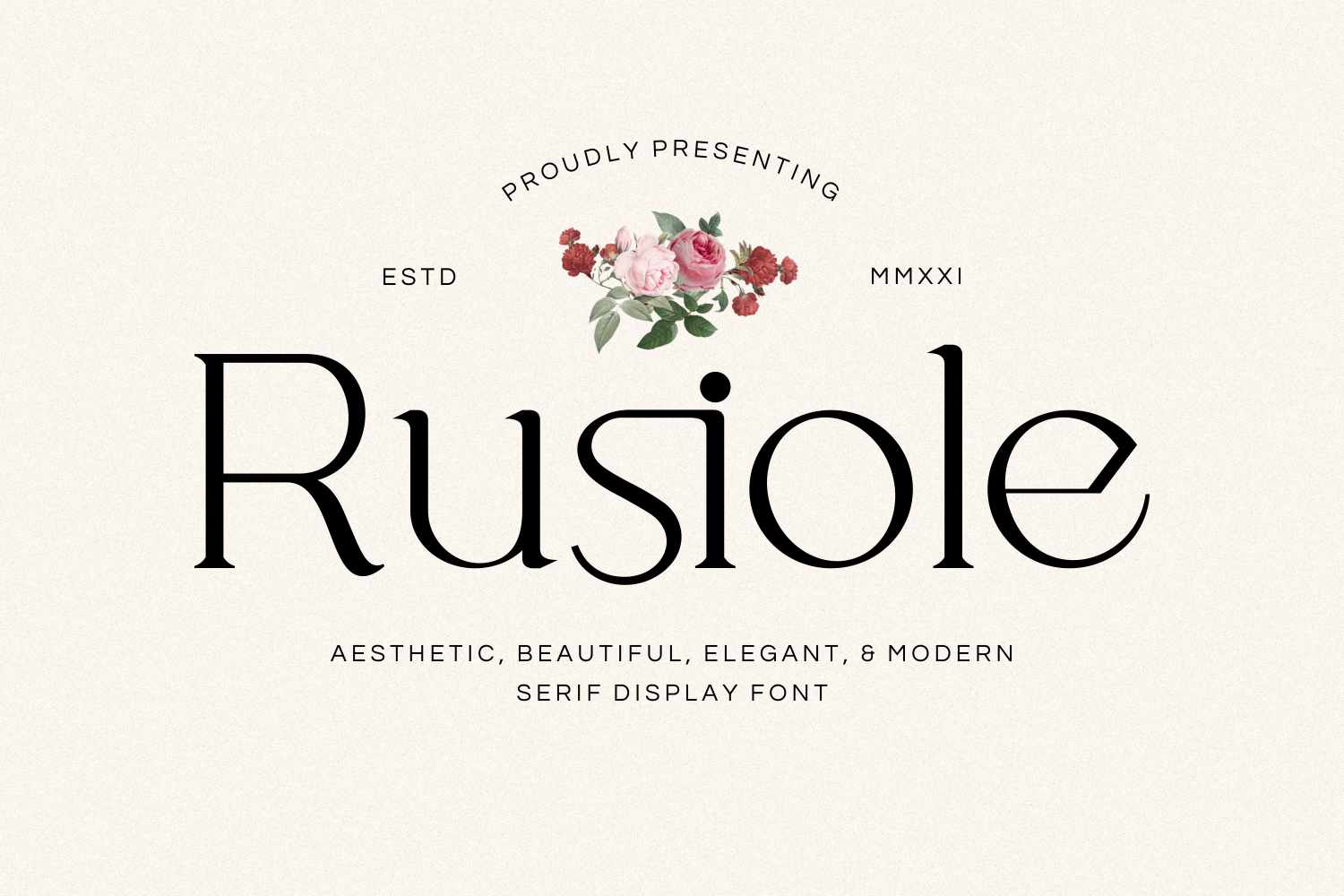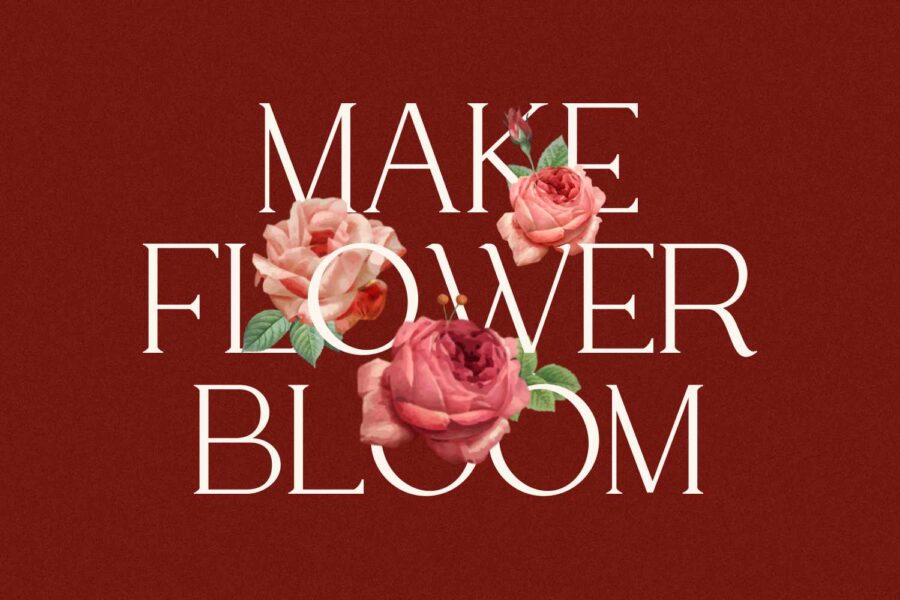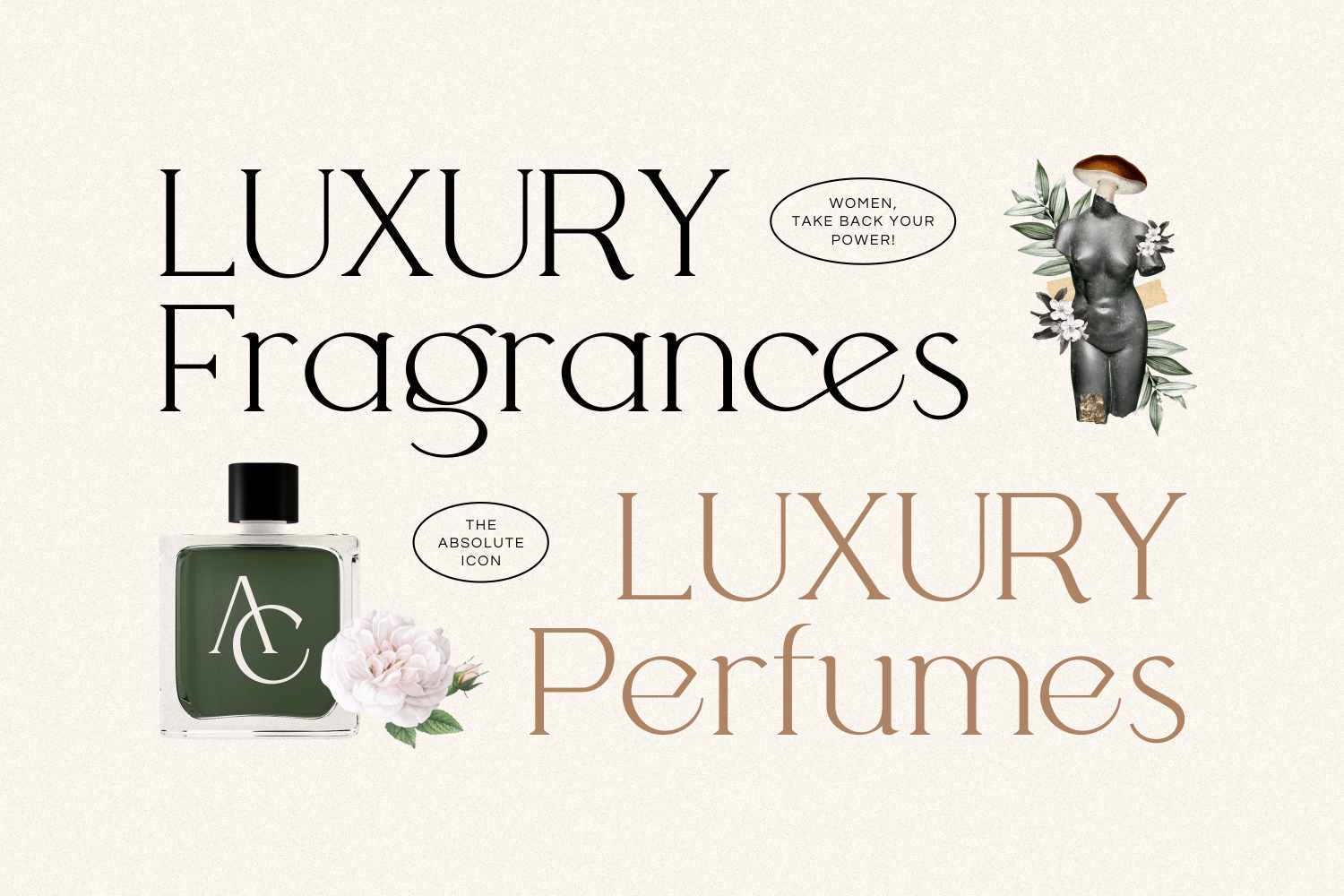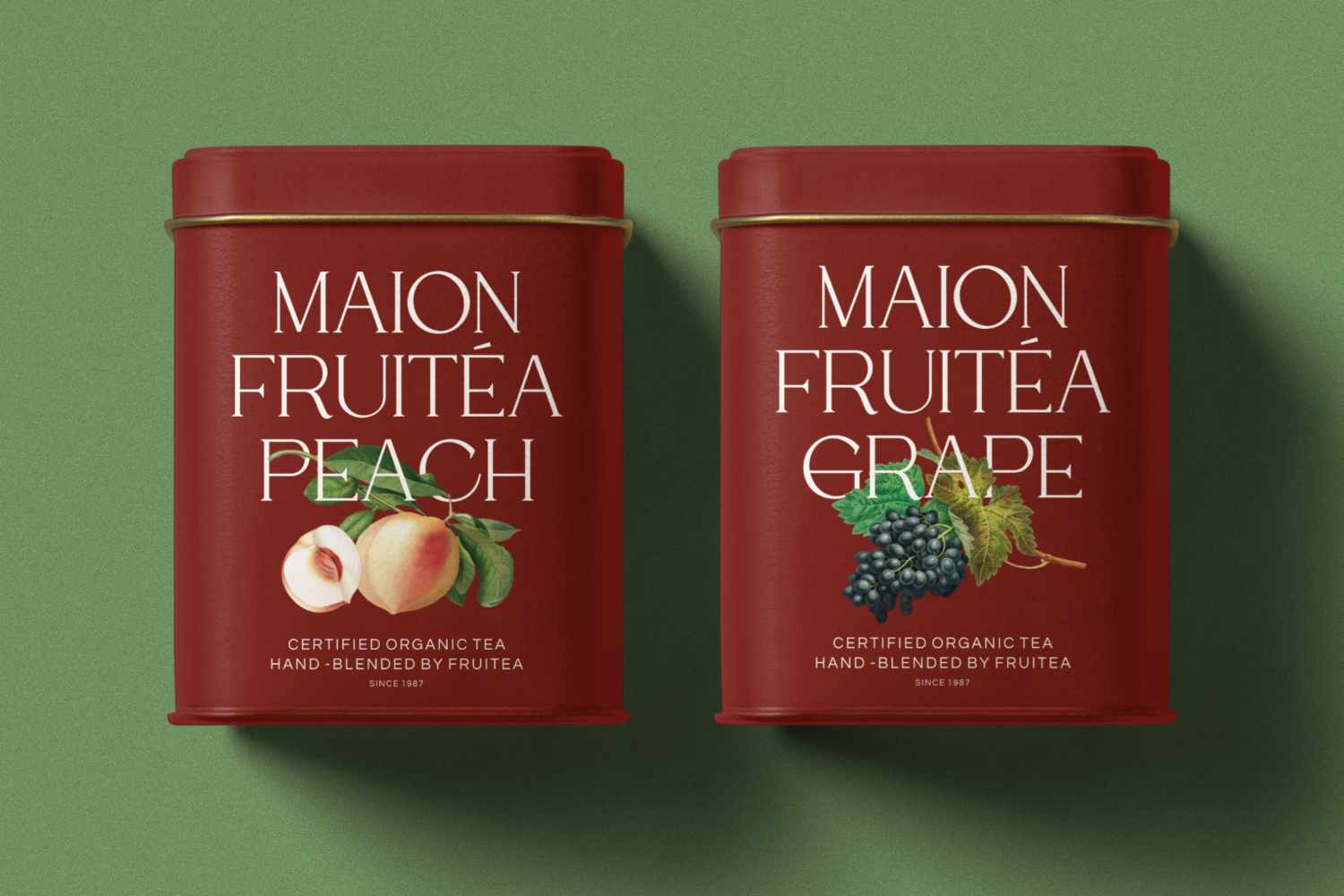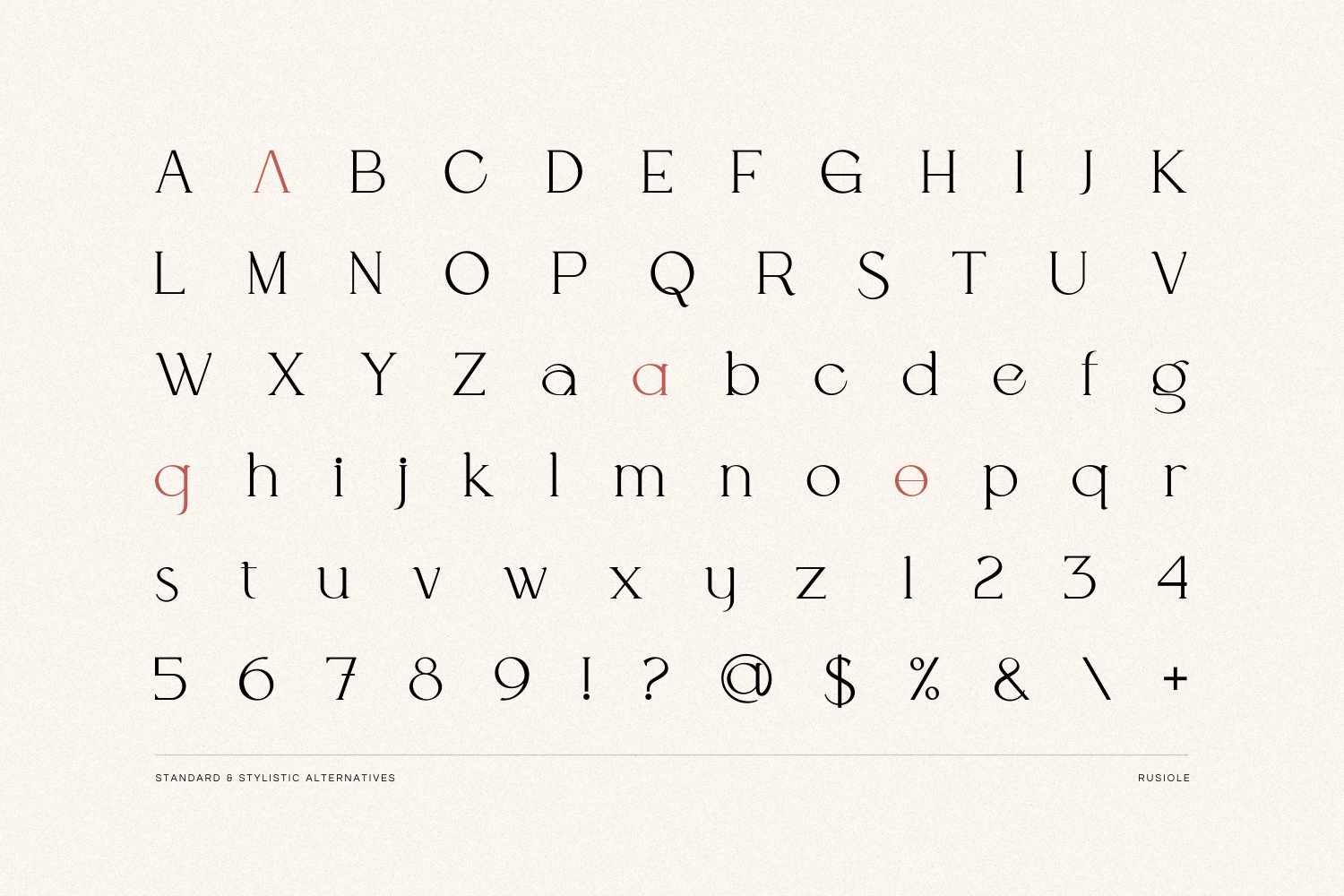
Rusiole
Rusiole is a modern serif display font that effortlessly blends elegance with artistry. With its high contrast strokes and delicately curved letterforms, Rusiole brings a sense of sophistication to any visual project. The font features stylistic alternates that make it versatile for branding, packaging, editorial, and luxury design. Making every layout feel refined and thoughtfully crafted.
Inspired by timeless beauty and contemporary fashion, Rusiole exudes charm and balance. Whether used on product labels, perfume branding, floral-themed designs, or upscale typography, it captures attention with grace. Its floral aesthetic, clean lines, and subtle unique curves make it perfect for creatives seeking to elevate their design with both modernism and femininity.